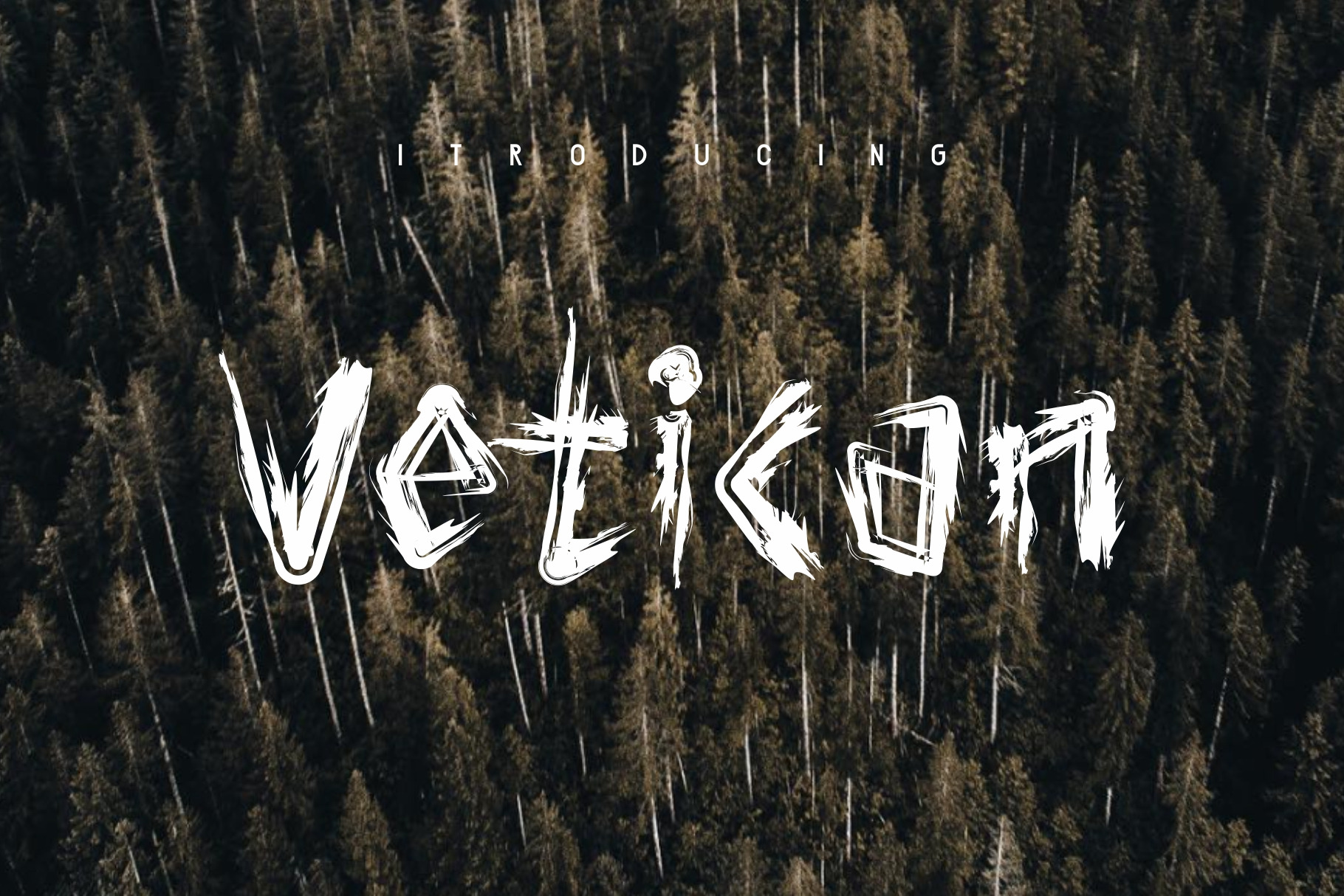
Vetican Brush Font
Give your designs an authentic brush handcrafted fell. “Vatican Typeface” is perfeccly suited to stationery, poster, product packaging, album cover, movie poster & much more